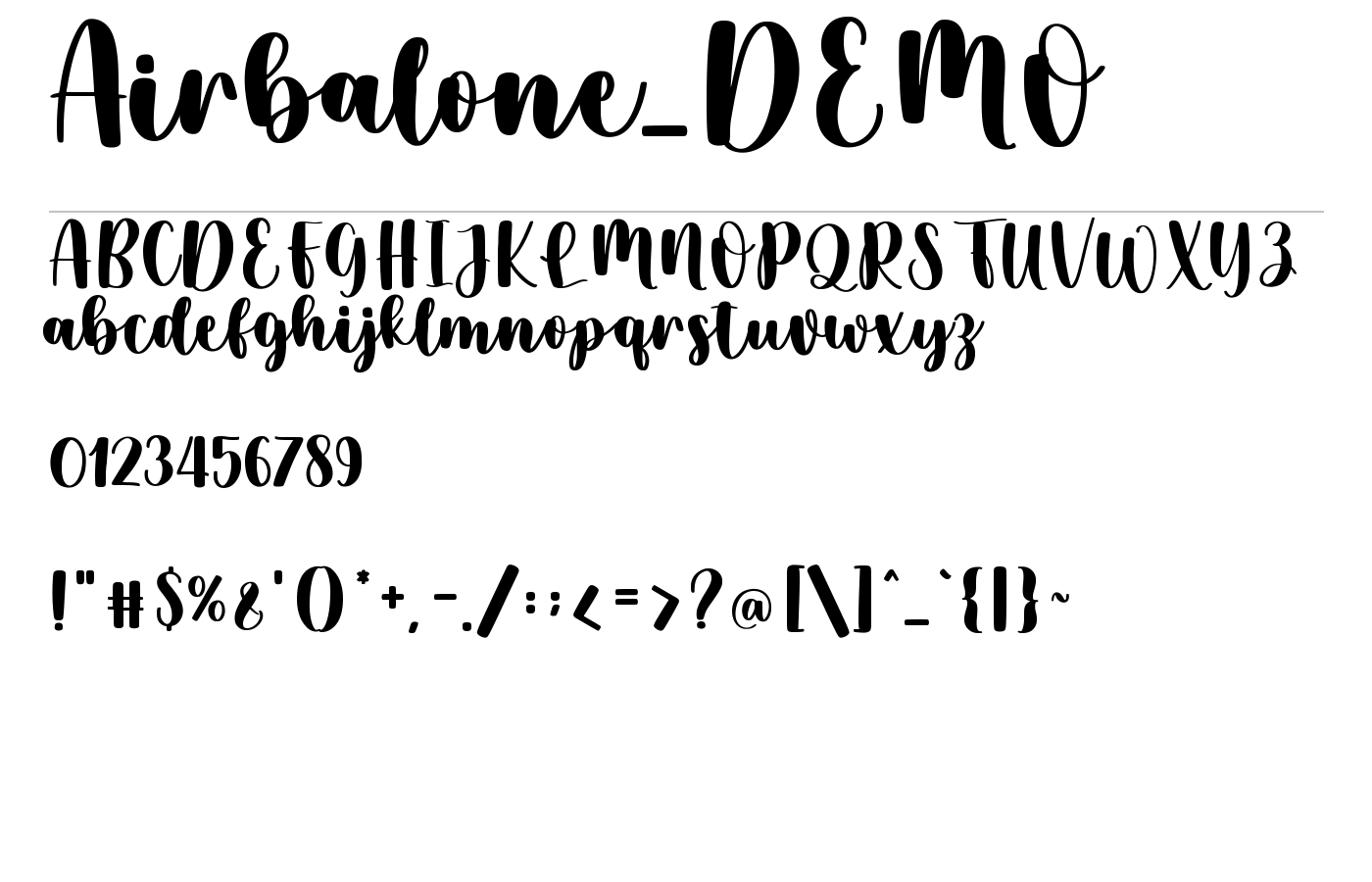
Airbalone_DEMO is a playful and elegant script font with a lively, hand-drawn feel. Its bold and rounded letterforms, combined with smooth curves and whimsical details, make it perfect for creative branding, invitations, and headlines that want to convey warmth and charm. This font works well in designs that need a friendly, approachable touch with a stylish personality.
Airbalone_DEMO Font
About Airbalone_DEMO Font